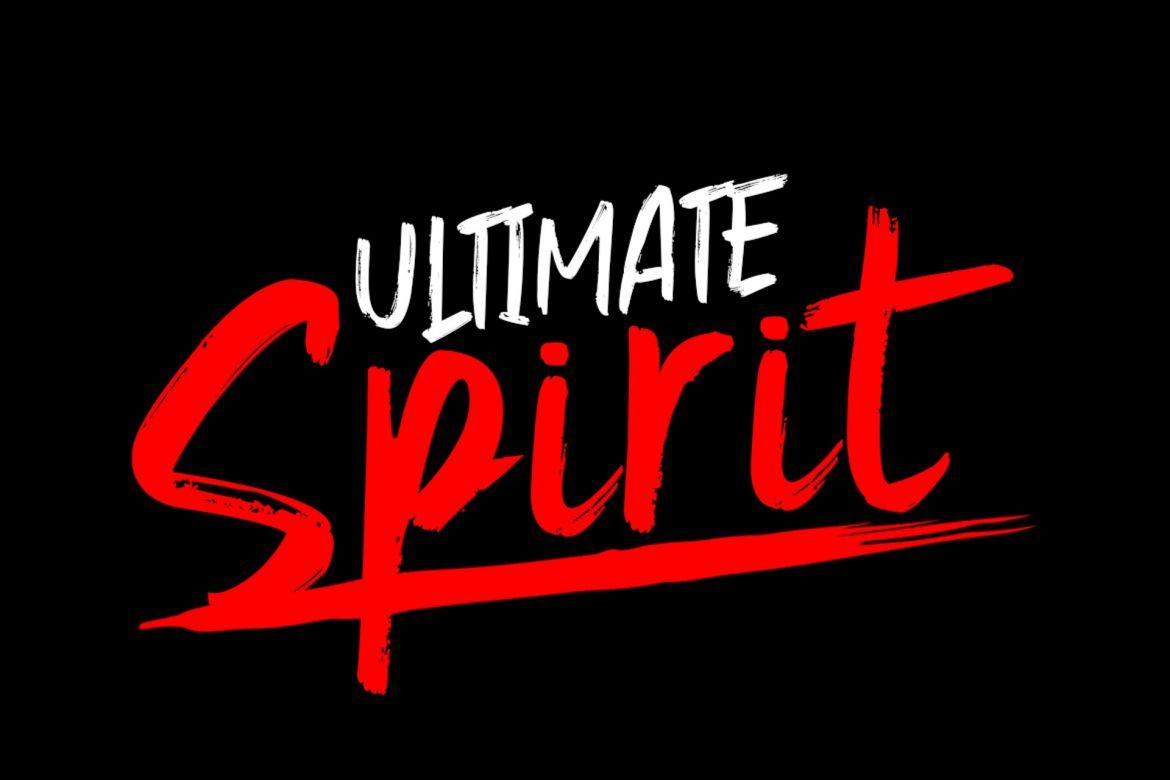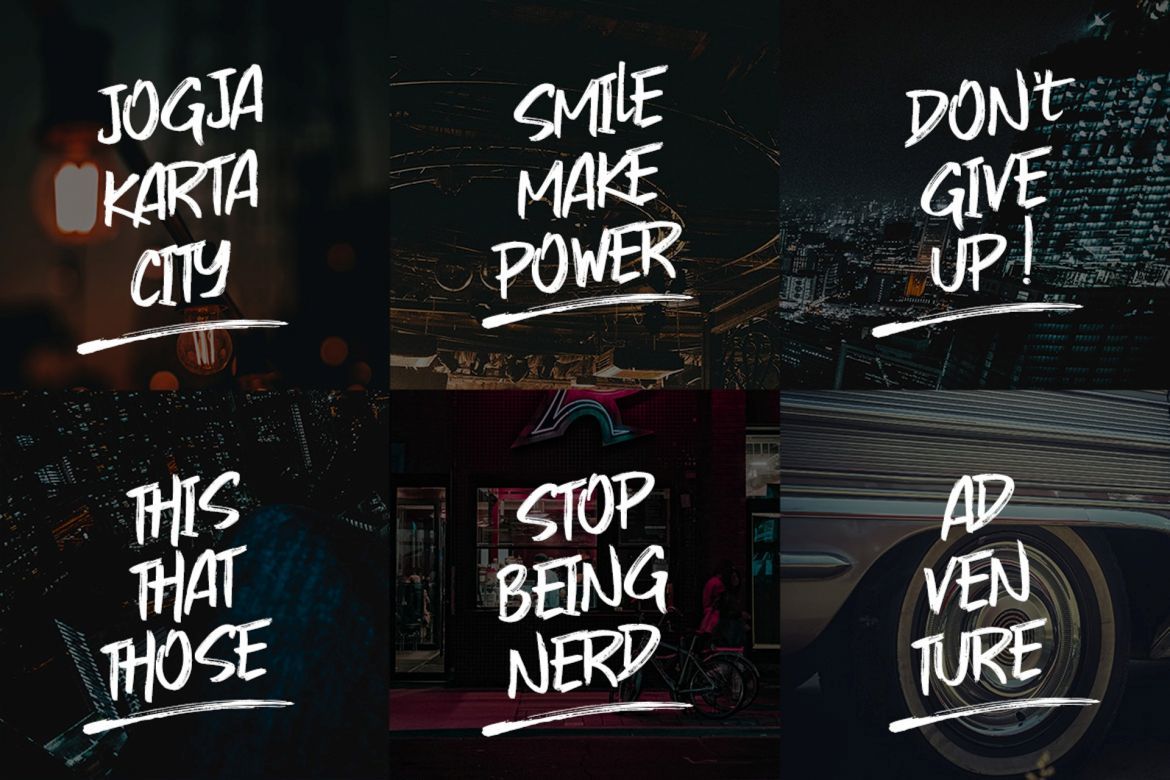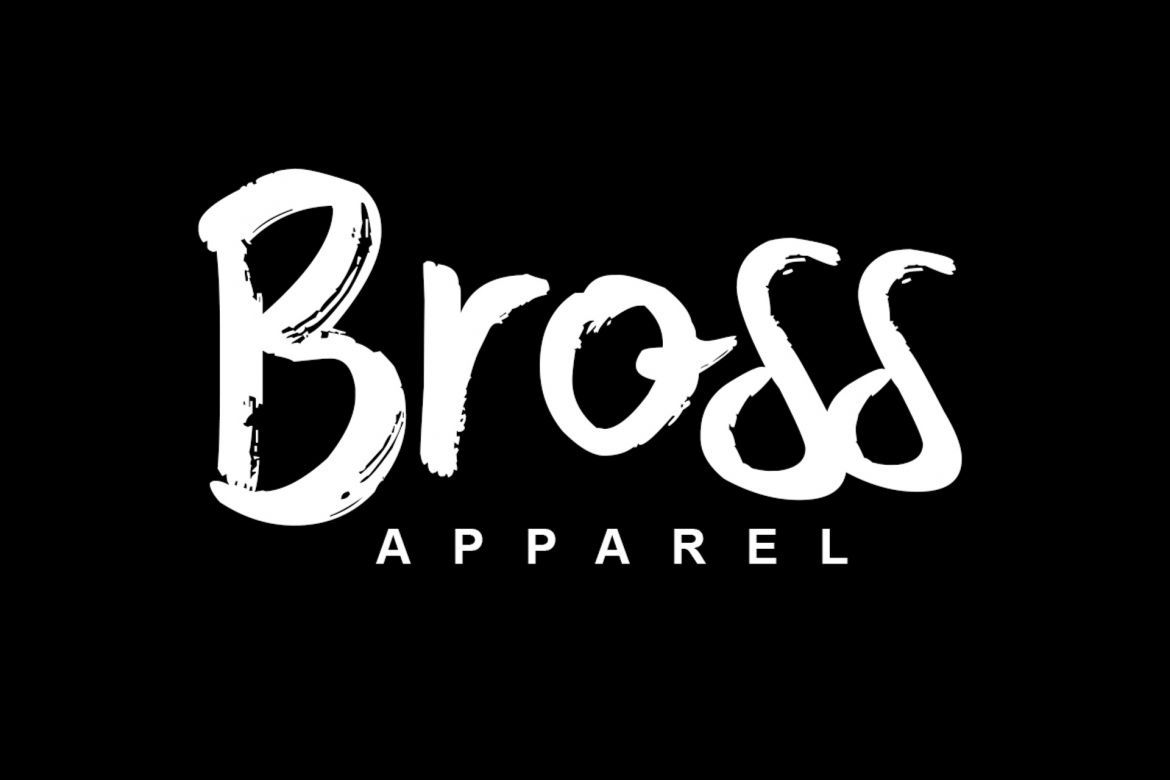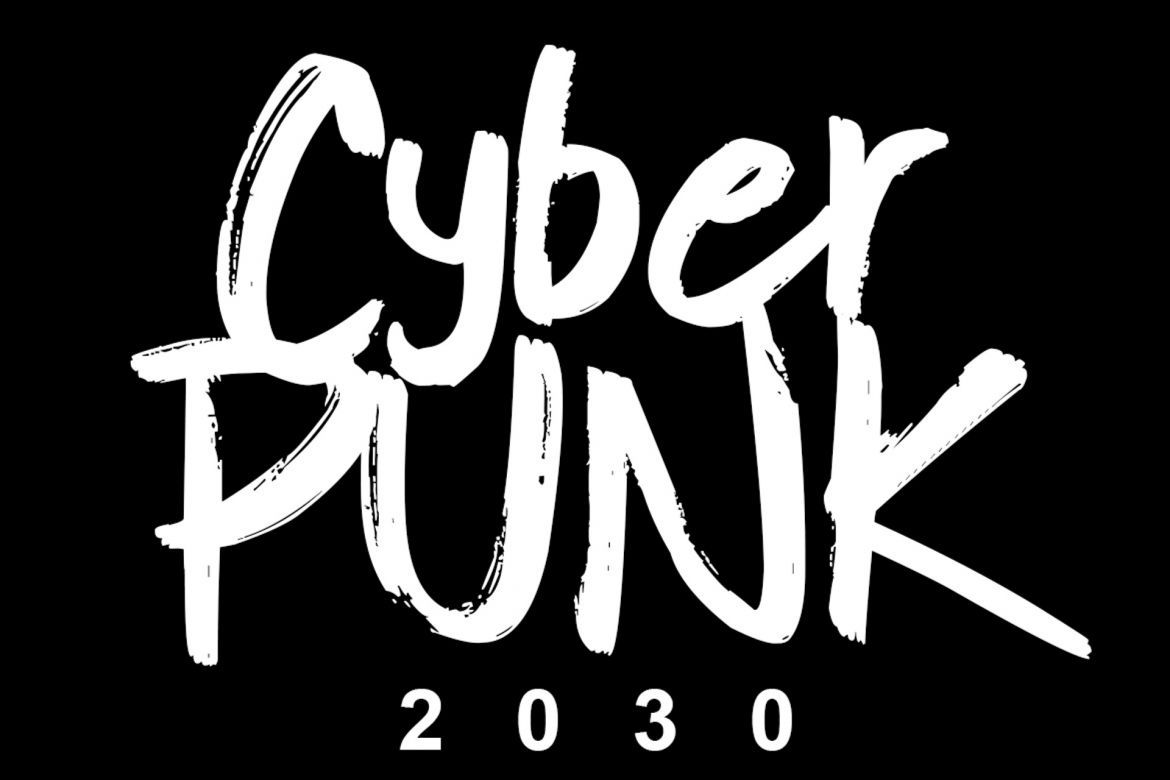
Gojira Black Brush Font
Gojira Black is Natural Dry Brush Font. This font is perfect for logo, quote, poster, playful lettering, for clothing, or any design projects.
• great for logo
• ready for slant version